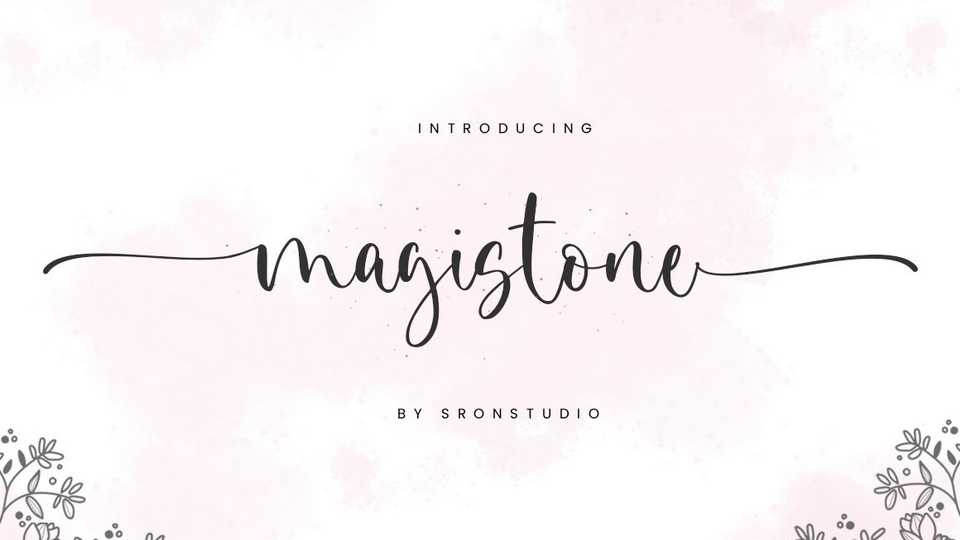
Download Magistone font, a beautiful modern calligraphy typeface with lovely swashes. Magistone is perfect for crafting, branding, invitation, stationery, wedding designs, social media posts, advertisements, label, photography, watermark, special events or anything.
Designer: Sronstudio